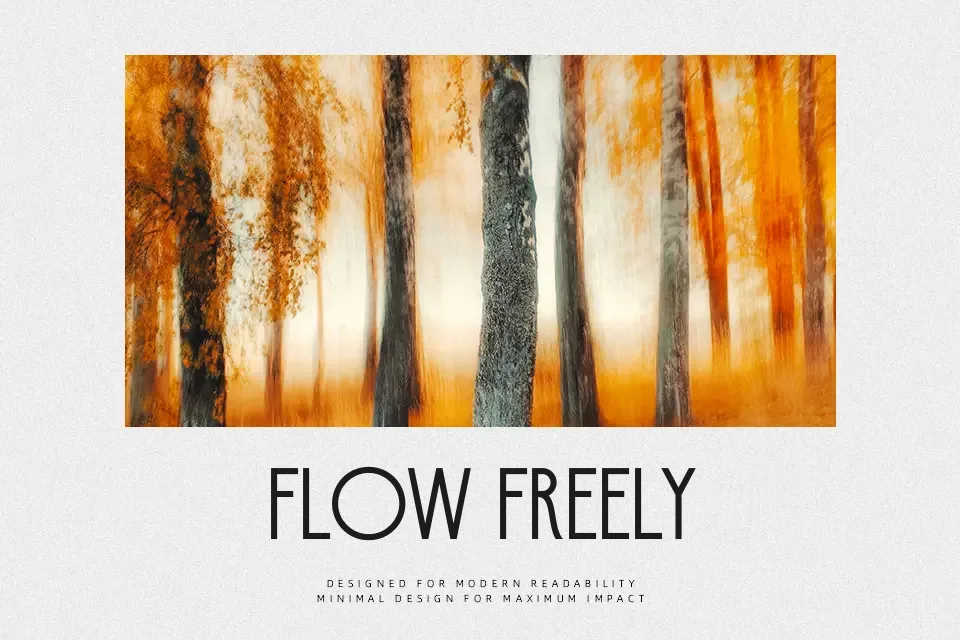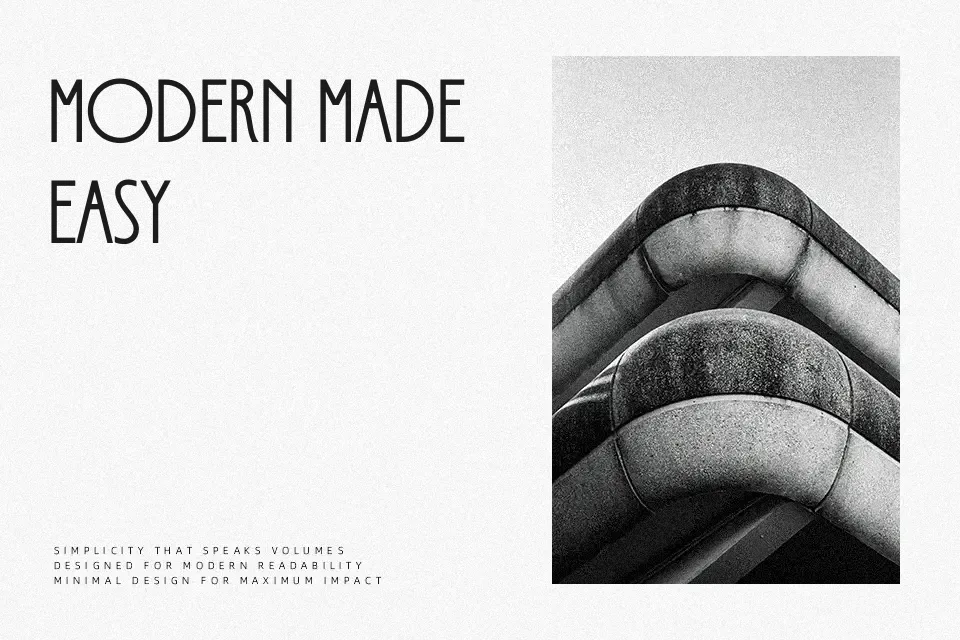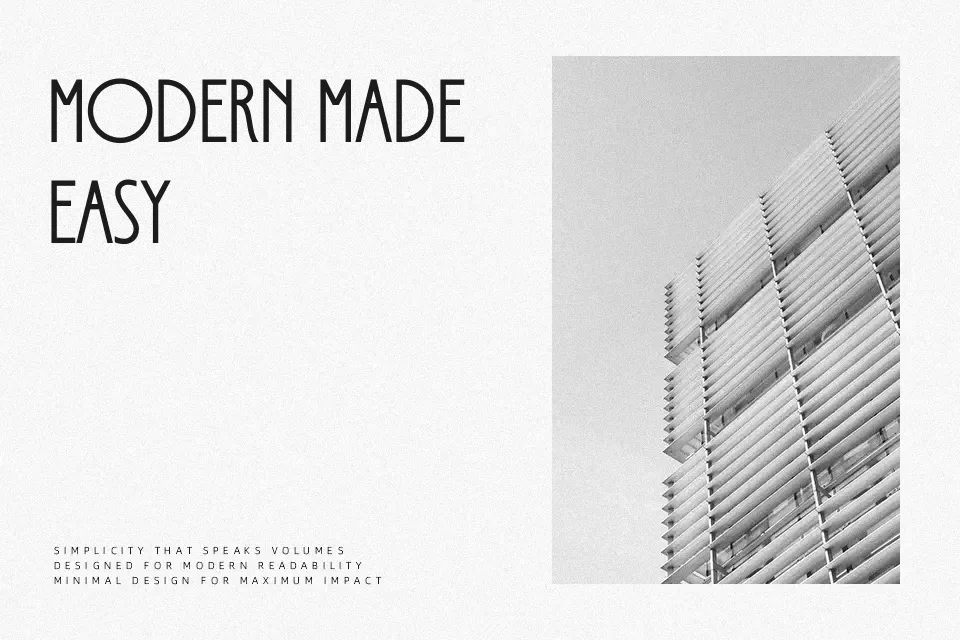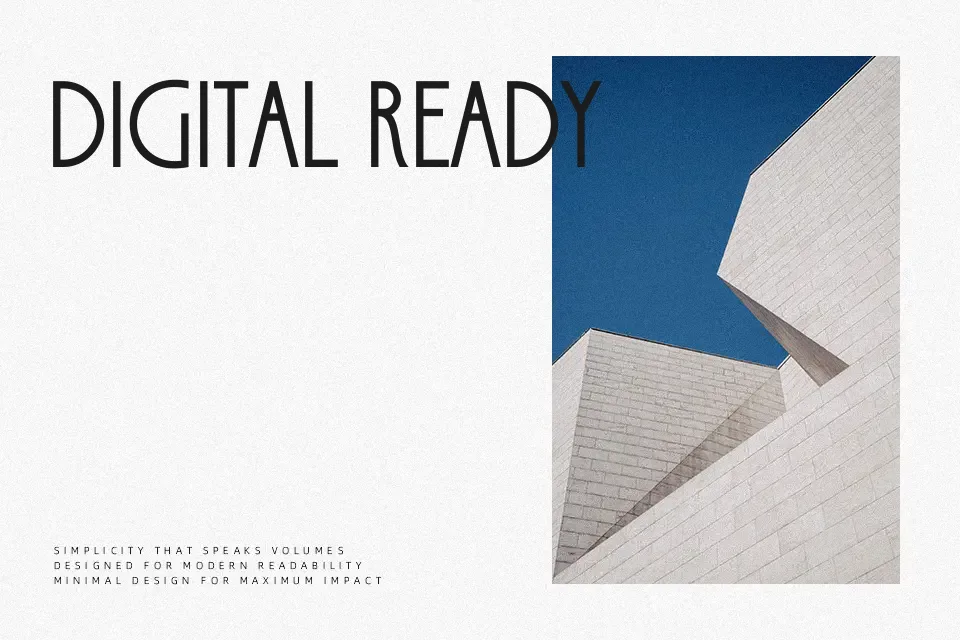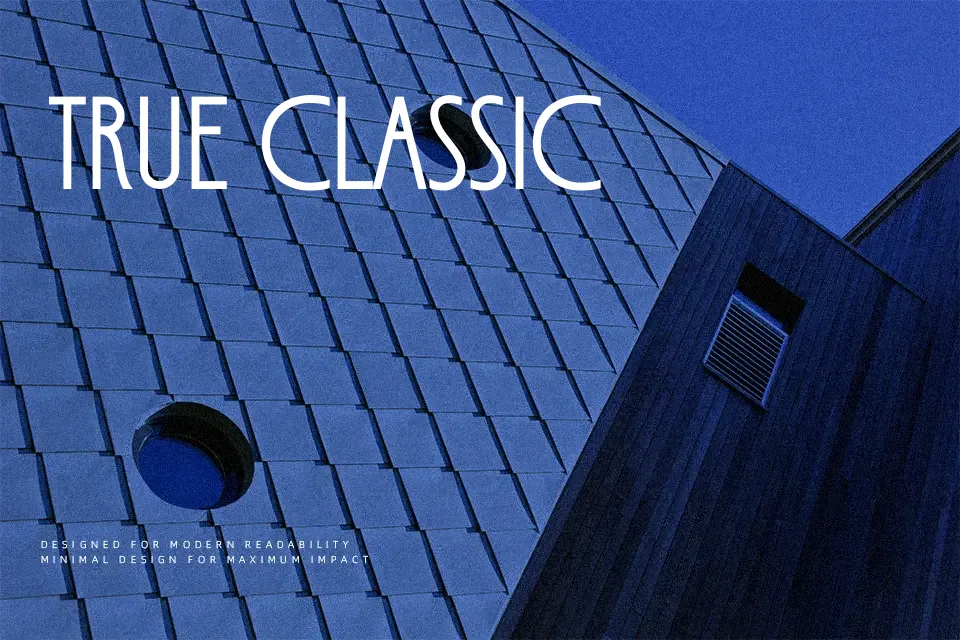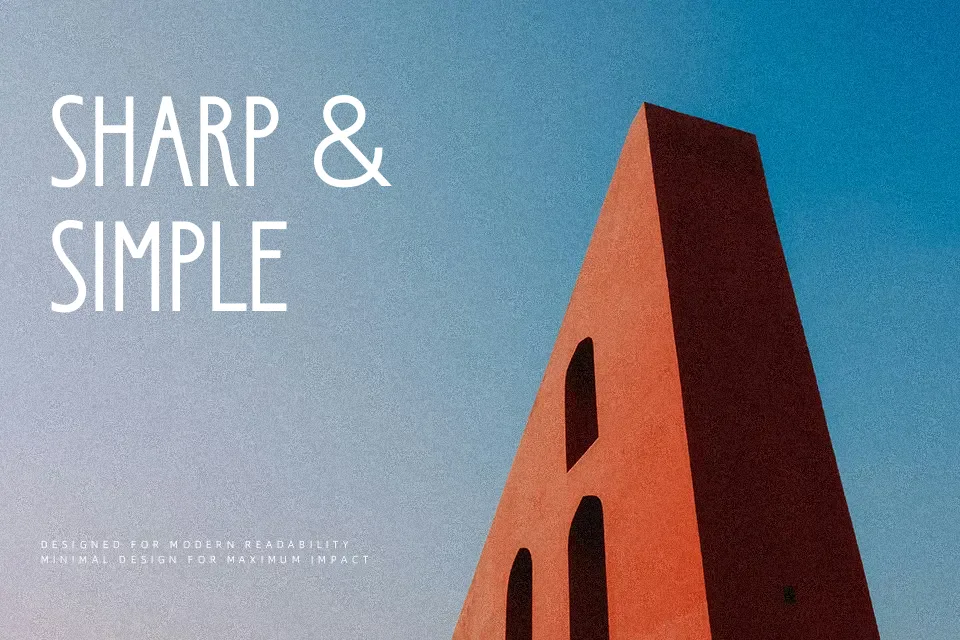
Thelorin Font
Evaluating typography for contemporary branding reveals that Thelorin Font functions most effectively at larger display scales where distinct retro details remain sharp. The typeface features low contrast linear weights paired with tall capital heights and circular curves that evoke vintage art deco signage. Generous tracking provides comfortable letter spacing in short headline sequences, ensuring individual shapes stay distinct on retail storefronts or album covers. However, the stylized character forms lose definition when scaled down to continuous text blocks. While these decorative attributes elevate event invitations and luxury labels, dense paragraph settings quickly compromise reading flow.
Best For: luxury product packaging, exhibition event posters, boutique storefront signage, fashion magazine headlines
Not Ideal For: long novel body text, corporate financial spreadsheets, mobile app UI captions, dense legal contracts
Perfect for branding, headline, and logo, with a clean and display style.